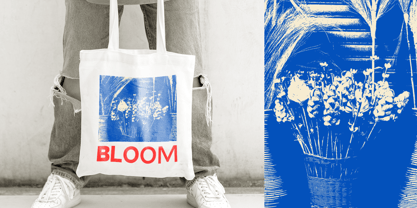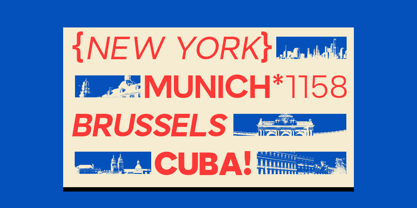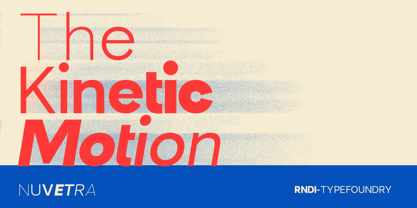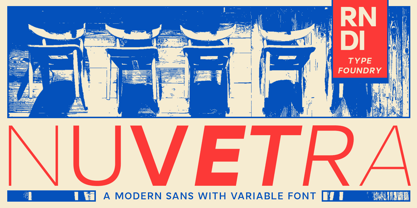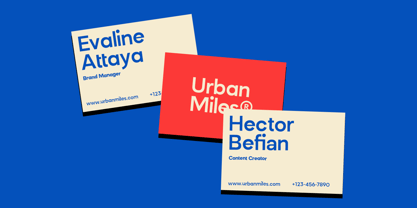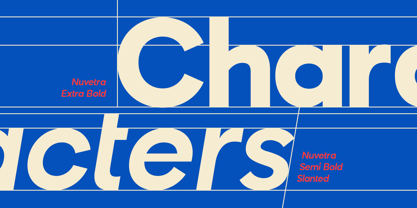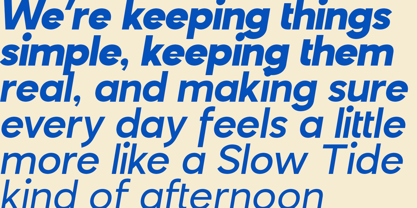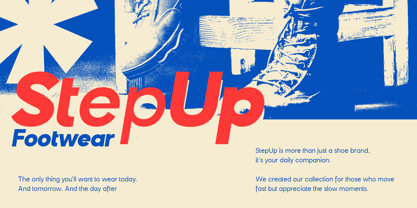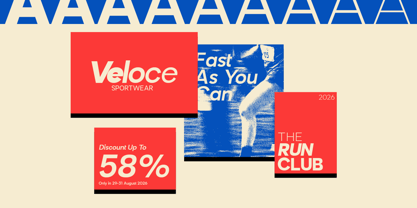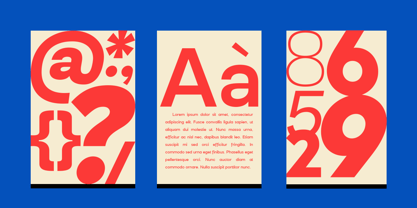
Nuvetra
The Nuvetra Font Family was designed by Randi Ilhamsyah and published by RNDI Type Foundry. Nuvetra contains 18 styles and family package options. More about this family
Nuvetra is a modern geometric sans-serif released by RNDI Typefoundry, packaged as a variable font with 18 static styles. The family spans 9 upright weights (Thin through Black) plus a full matching set of oblique/slanted variants, giving designers broad expressive range within a single cohesive system.
Nuvetra works well across branding, poster design, editorial layouts, packaging, apparel, and digital UI — as demonstrated in the promotional materials showing it applied to everything from tote bags to footwear ads to large-scale typographic posters.